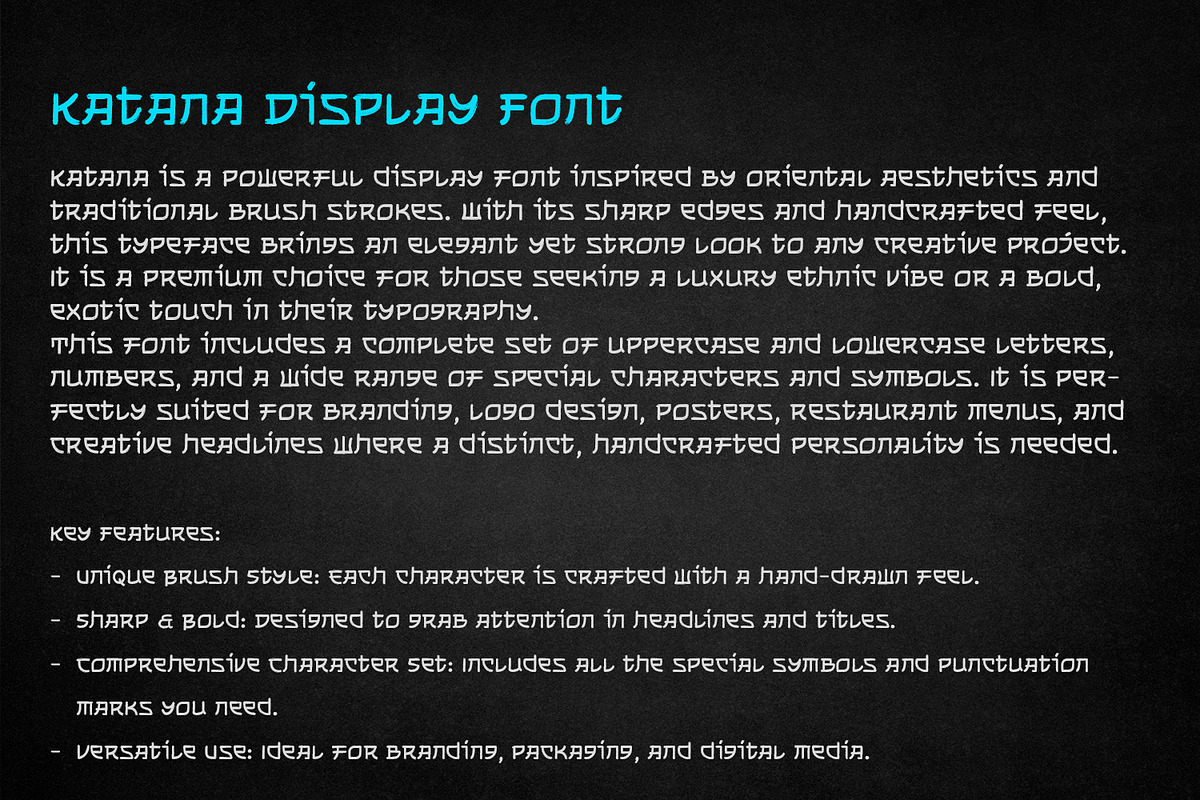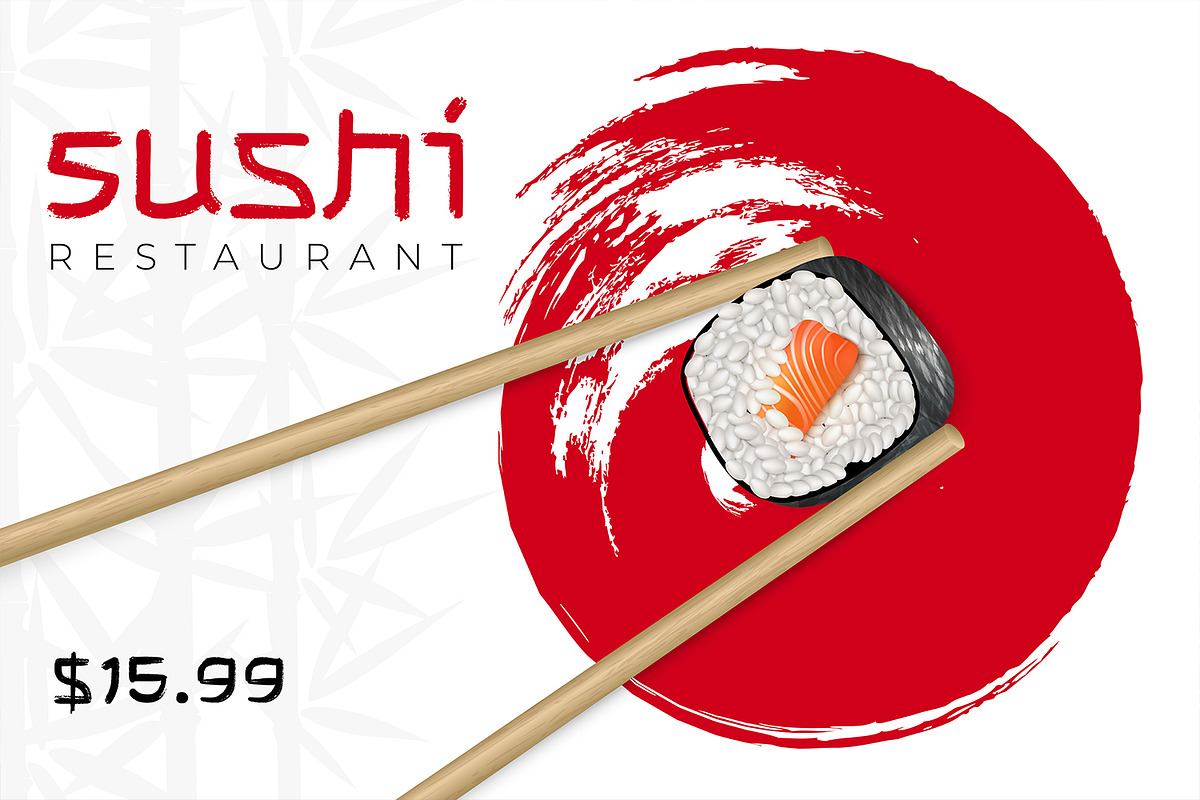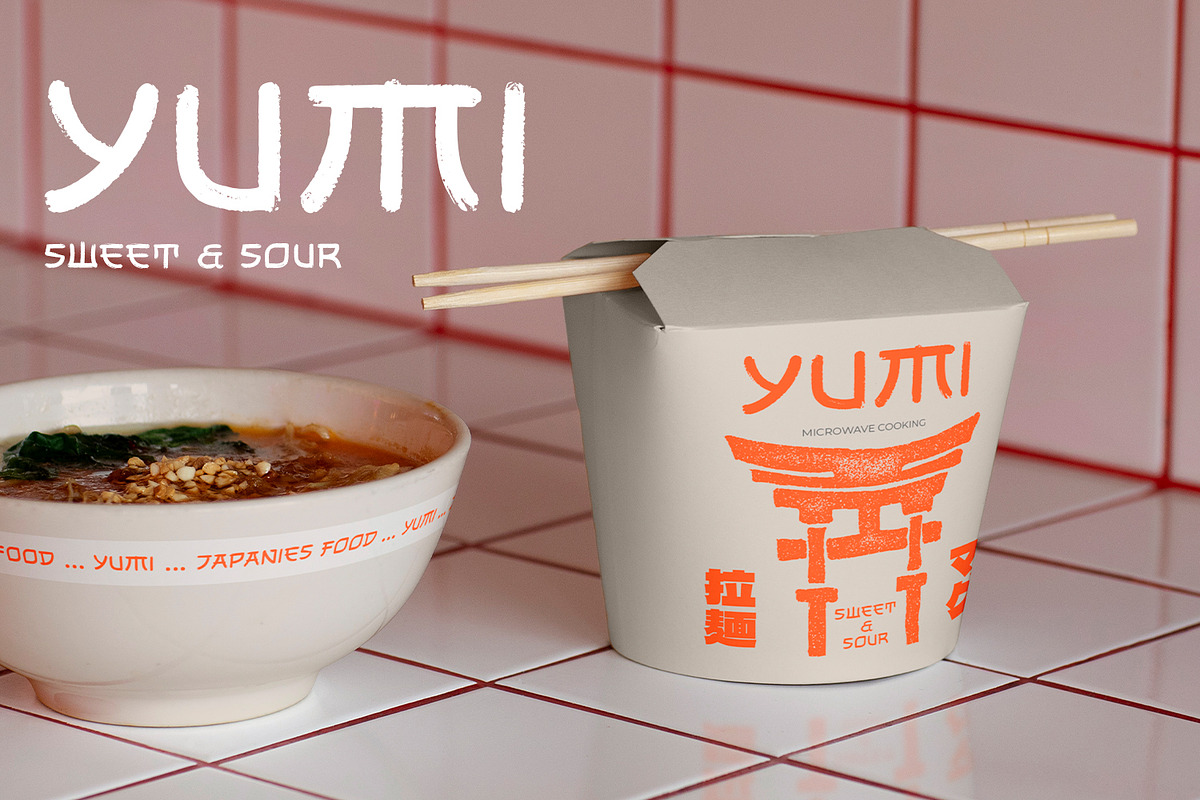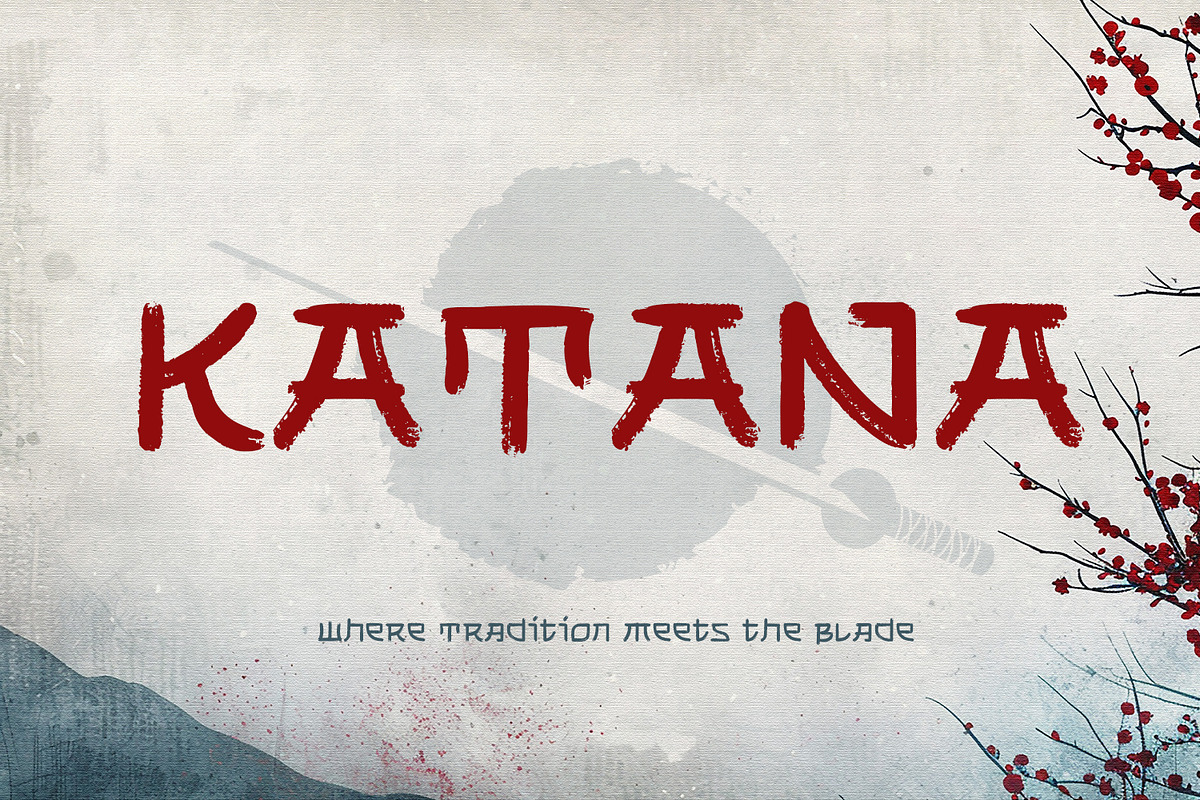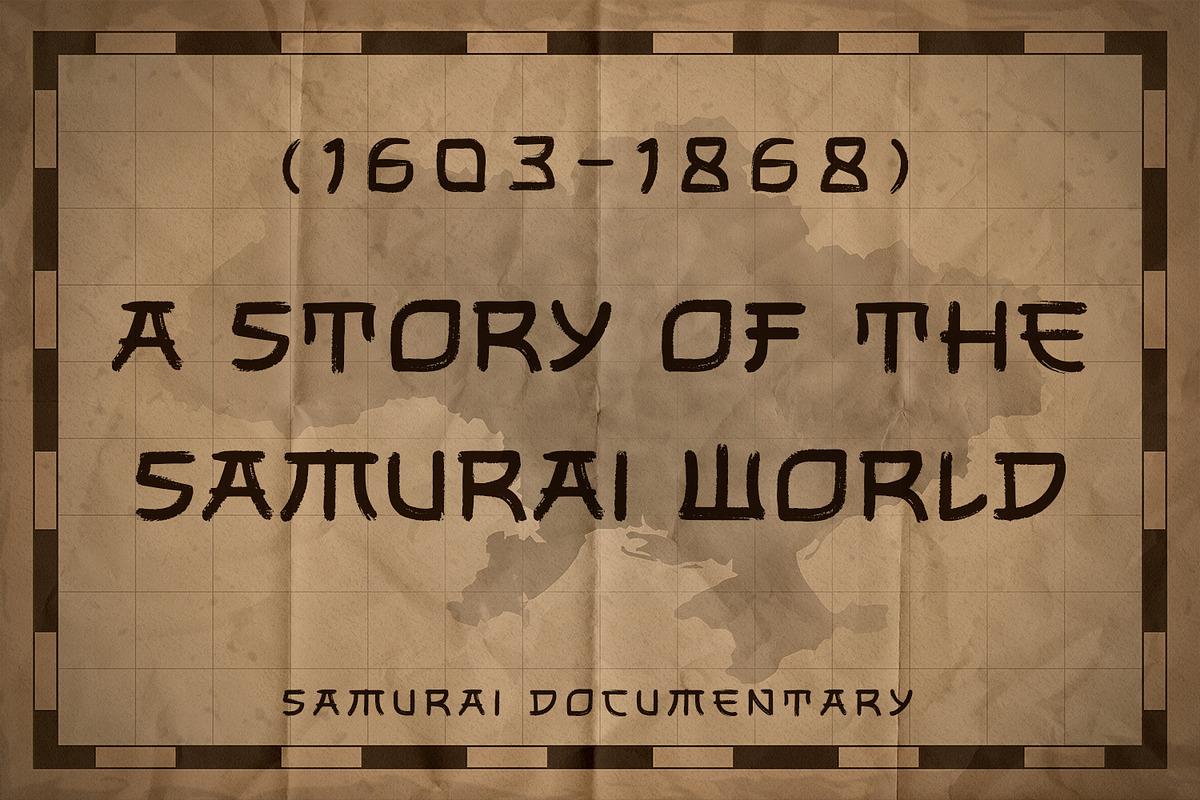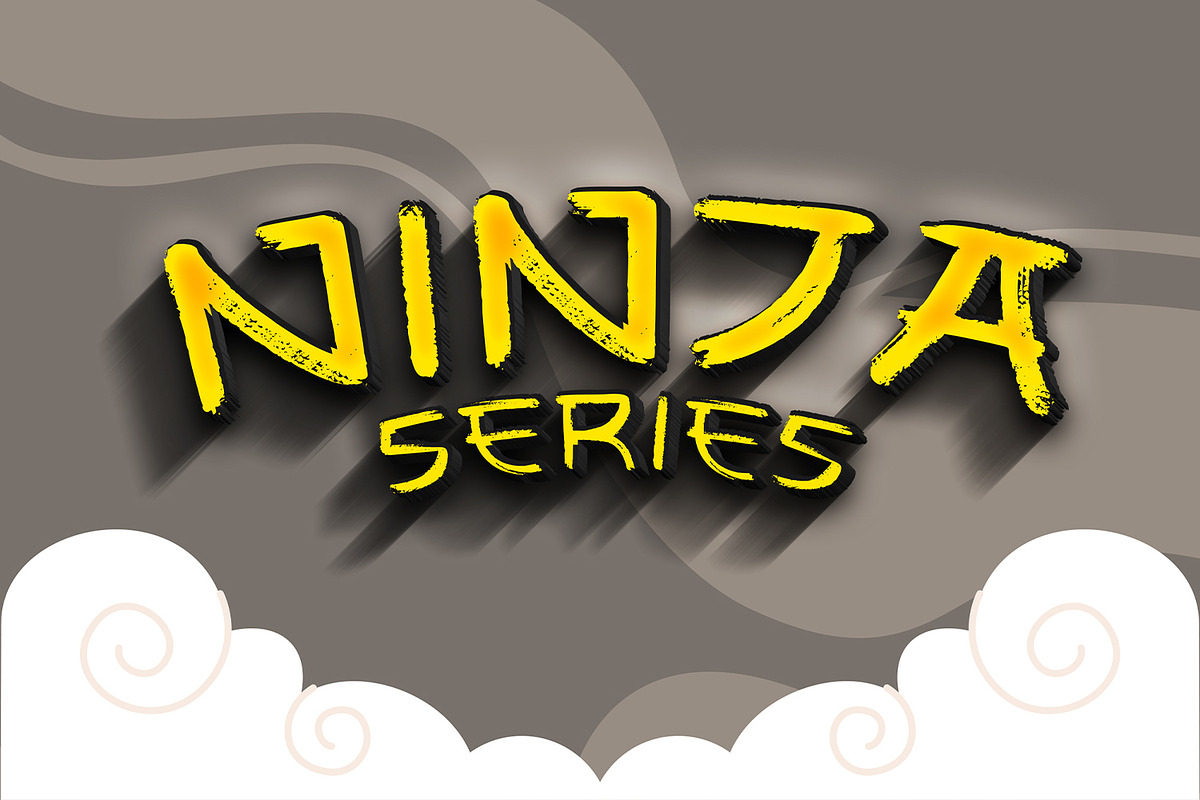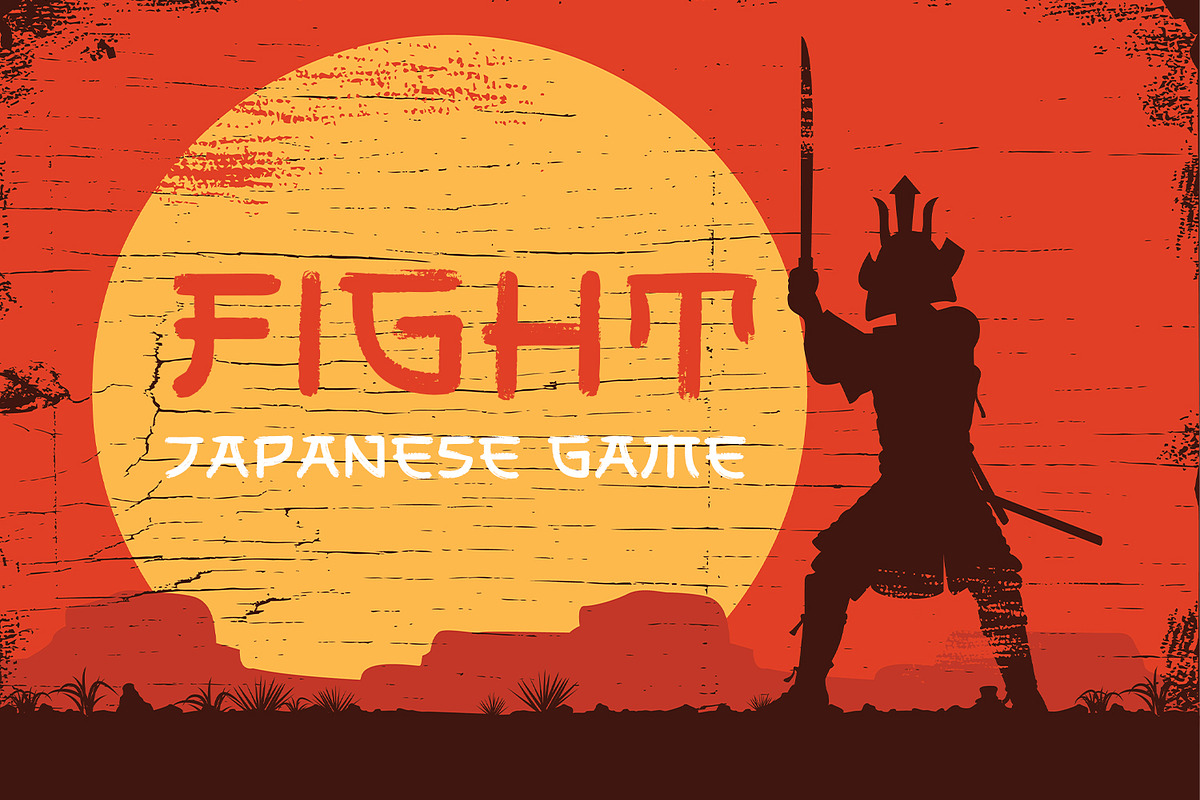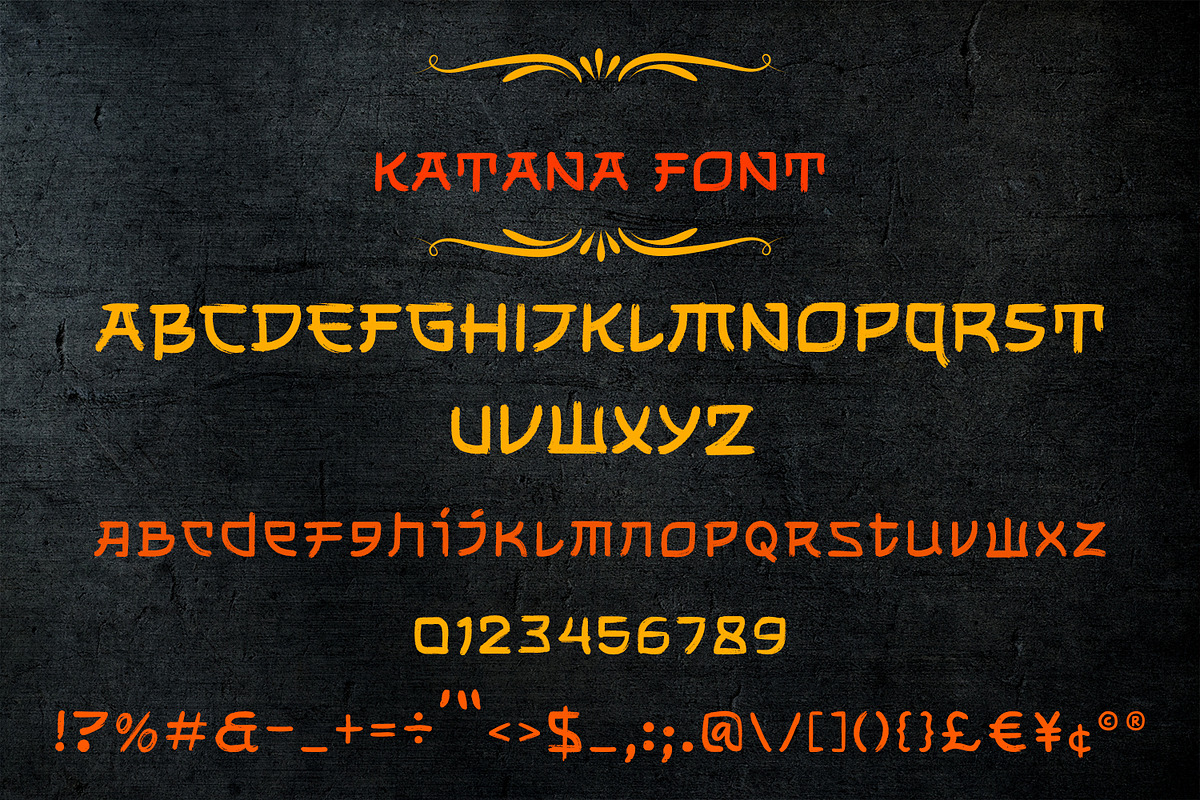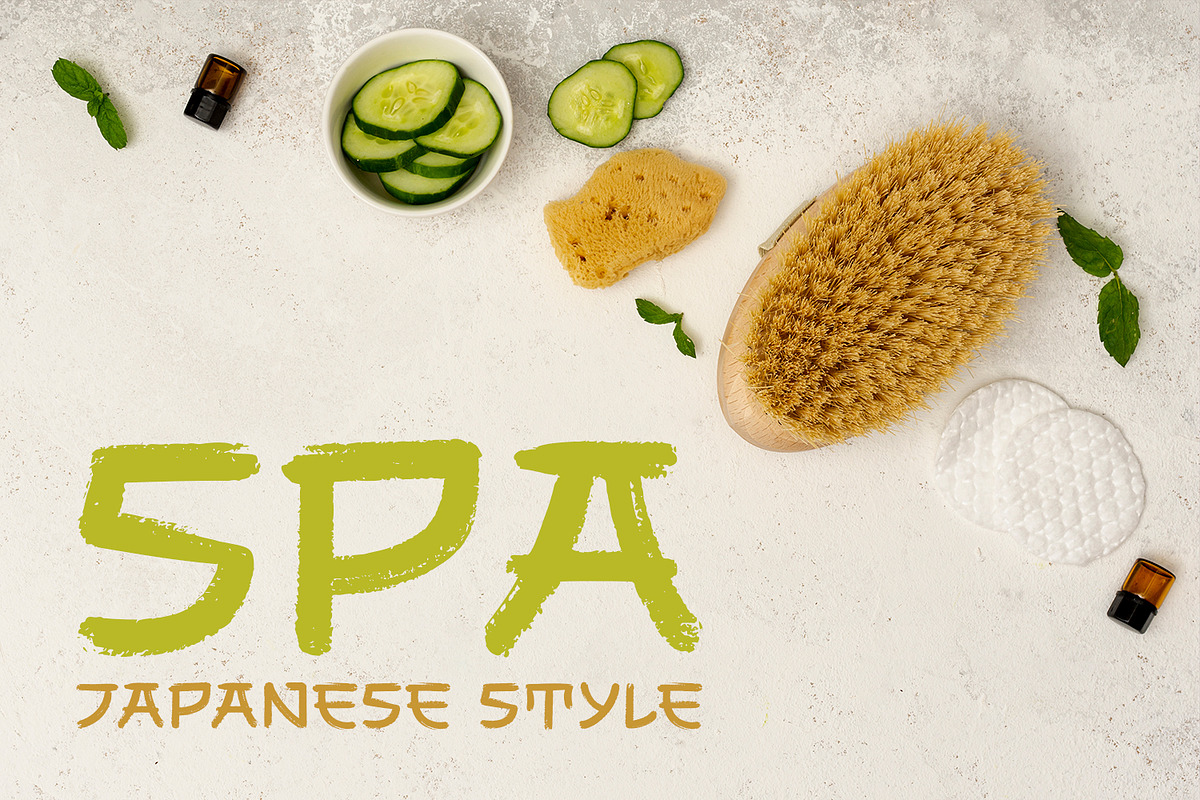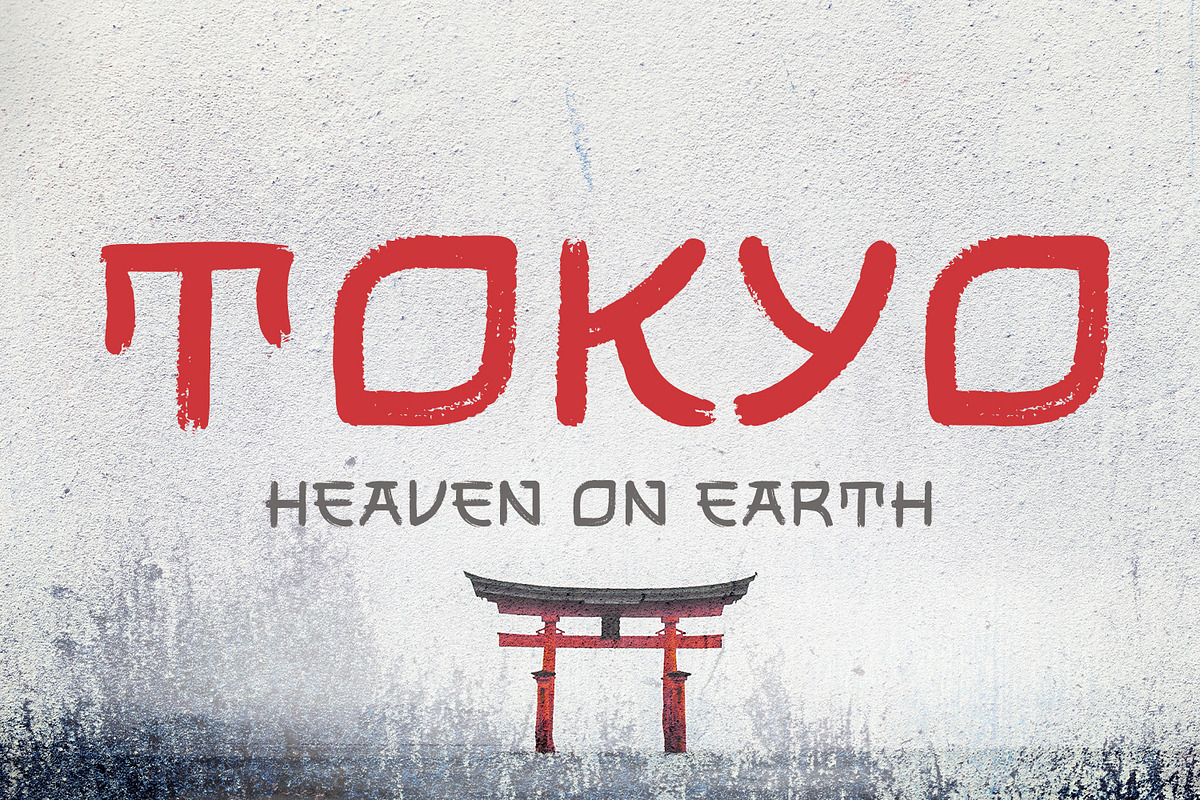
Katana - Elegant Japanese Samurai
Unleash the spirit of the East with Katana, a stunning display font that perfectly blends traditional Japanese calligraphy with a modern, sharp edge. Handcrafted with authentic brush strokes, this typeface is designed to bring a premium and luxury feel to any creative project.
Katana is exceptionally versatile and ideal for:
- Branding & Logos: Create a memorable identity for restaurants, martial arts dojos, or gaming brands.
- Apparel & Fashion: Transform t-shirts, hoodies, and streetwear with a bold, exotic aesthetic.
- Entertainment: Perfect for movie posters, book covers, and video game titles with a samurai or ninja theme.
- Home Decor: Beautiful for wall art, stationery, and cultural event invitations.
This font is fully accessible and includes a complete set of uppercase, lowercase, numbers, and a wide array of special characters. Whether you are designing for a high-end brand or a creative personal project, Katana provides that unique, handcrafted touch that stands out.